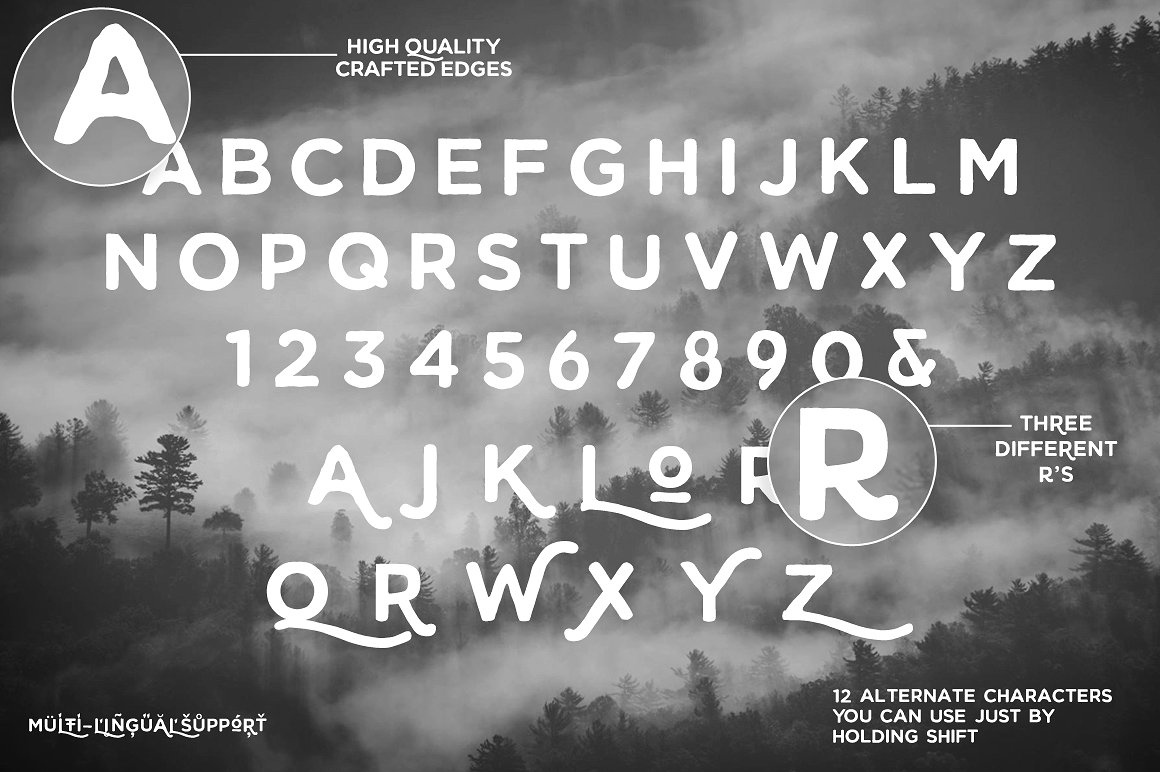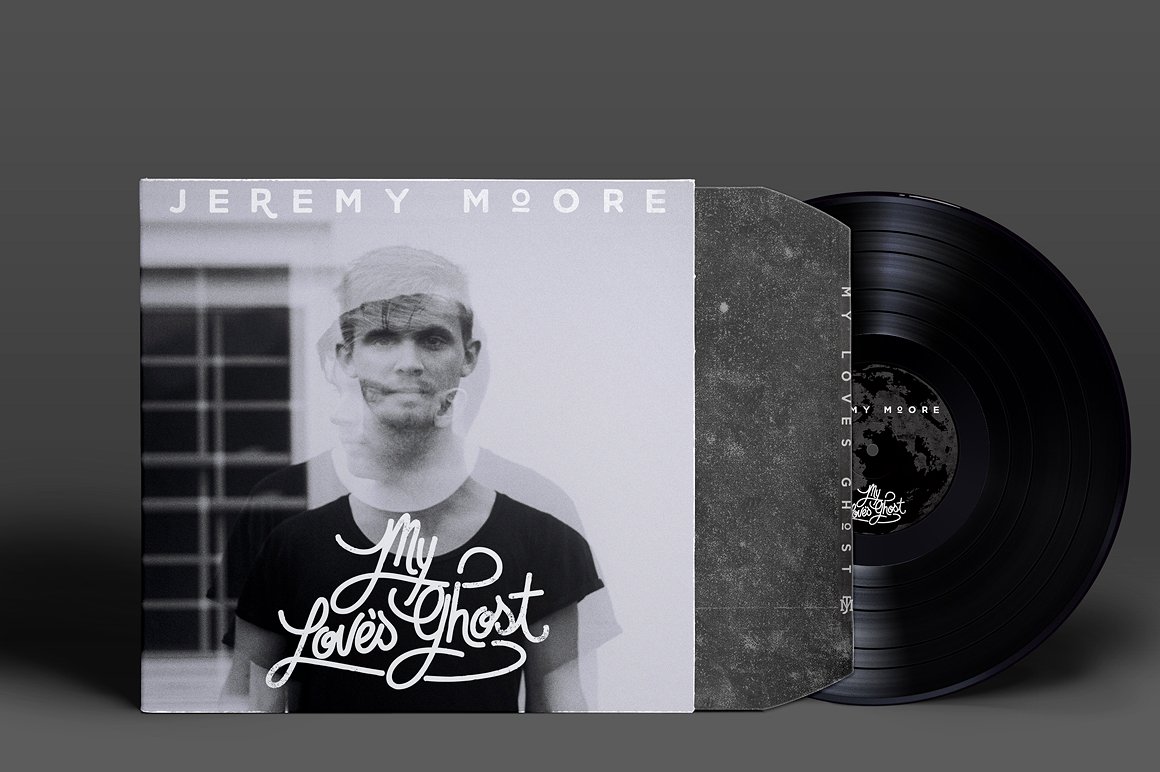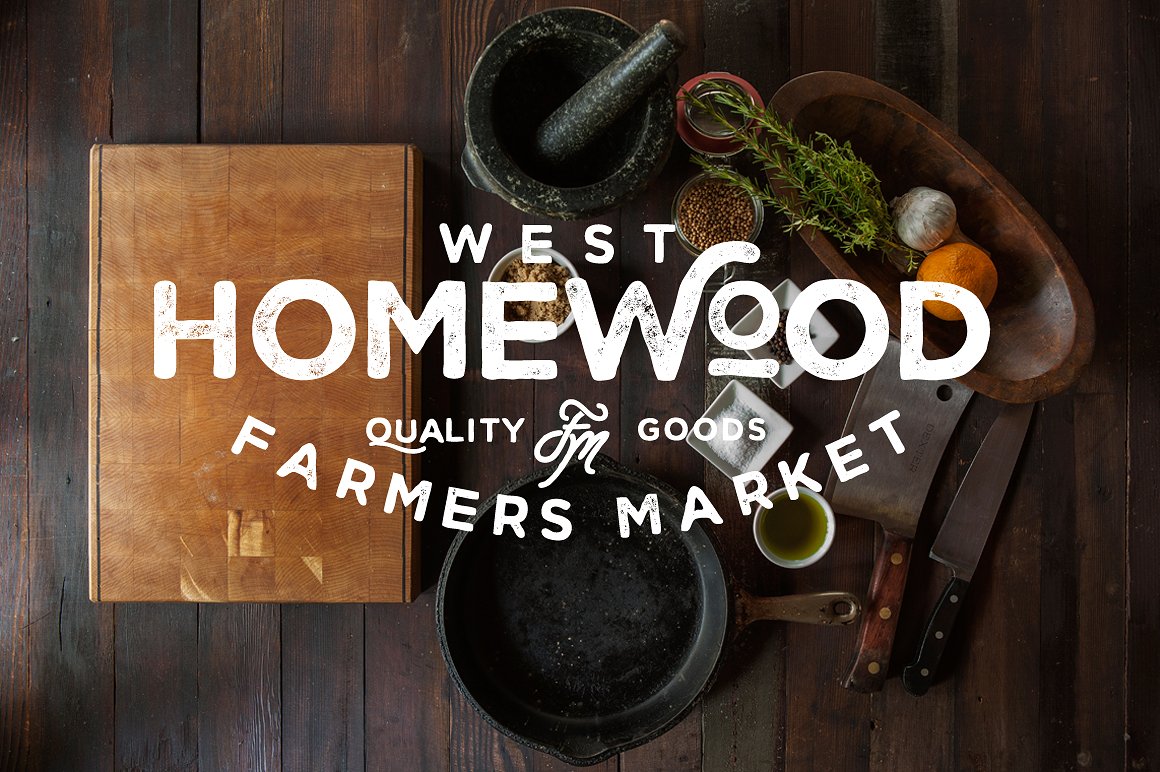
Fernweh Font: Unleash Your Wanderlust with this Beautiful Sans Serif Decorative Font
Are you a designer, crafty person, or simply someone who loves to add a personal touch to your projects? Look no further than the Fernweh Font, a stunning sans serif decorative font that embodies the spirit of wanderlust. In this article, we’ll dive into the world of Fernweh, exploring its unique features, and how it can elevate your designs to new heights.
What is Fernweh Font?
Fernweh Font is a beautiful sans serif decorative font, carefully crafted with a wanderlust flair. The name “Fernweh” is derived from the German words “fern” meaning “far” and “weh” meaning “ache” or “longing.” This font is perfect for designers and crafters who want to evoke a sense of adventure, freedom, and exploration in their work.
Unique Features of Fernweh Font
Fernweh Font is a hand-drawn font, which gives it a wonderfully intentional handmade feel. The beautifully crafted edges of each letter add a touch of personality and whimsy, making it perfect for projects that require a dash of creativity and flair. The sans serif design ensures that the font remains clean and elegant, while the decorative elements add a touch of sophistication.
Key Characteristics of Fernweh Font
• Hand-drawn font: Each letter is carefully crafted by hand, giving the font a unique and personal touch.
• Sans serif design: The clean and elegant sans serif design makes Fernweh Font perfect for a wide range of projects.
• Decorative edges: The beautifully crafted edges of each letter add a touch of personality and whimsy.
• Wanderlust flair: The font embodies the spirit of adventure and exploration, making it perfect for travel-related projects or designs that require a sense of freedom.
Use Cases for Fernweh Font
Fernweh Font is a versatile font that can be used in a wide range of projects, including:
• Travel brochures and guides: Add a touch of wanderlust to your travel-related projects with Fernweh Font.
• Branding and packaging: Use Fernweh Font to add a personal touch to your brand’s identity and packaging.
• Posters and flyers: Create eye-catching posters and flyers with Fernweh Font, perfect for promoting events or products.
• Digital and print media: Use Fernweh Font in your digital and print media projects, such as magazines, newspapers, and blogs.
Why Choose Fernweh Font?
With so many fonts available, why choose Fernweh Font? Here are just a few reasons:
• Unique and eye-catching: Fernweh Font is a one-of-a-kind font that will make your designs stand out from the crowd.
• High-quality design: The font is carefully crafted with attention to detail, ensuring a high-quality design that will elevate your projects.
In conclusion, Fernweh Font is a beautiful sans serif decorative font that embodies the spirit of wanderlust. With its unique features, key characteristics, and versatile use cases, it’s the perfect addition to any designer’s or crafter’s toolkit. Whether you’re working on a travel-related project or simply want to add a personal touch to your designs, Fernweh Font is sure to impress. So why wait? Download Fernweh Font today and unleash your creativity!